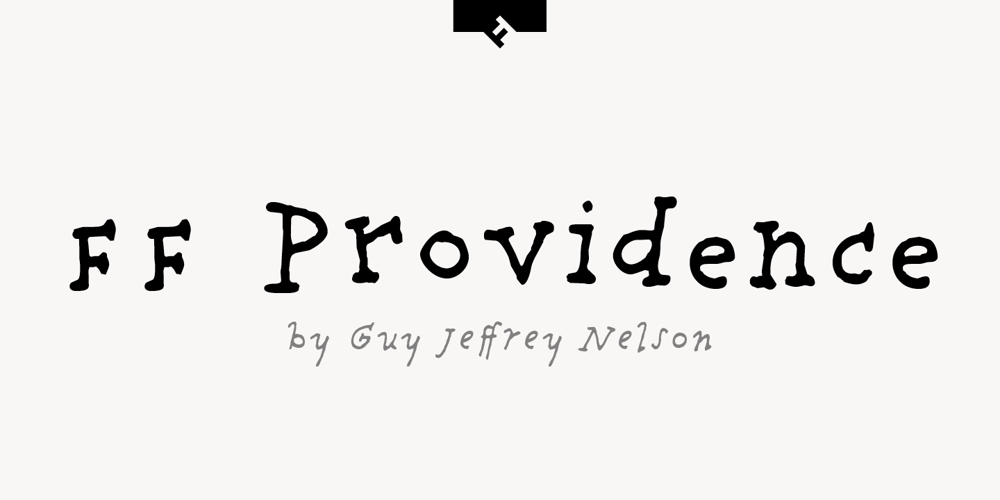
FF Providence Font Family was designed by Guy Jeffrey Nelson, Panos Haratzopoulos and published by FontFont. FF Providence contains 4 styles and family package options. American type designer Guy Jeffrey Nelson created this script FontFont in 1994. The family contains 4 weights: Regular, Italic, Bold, and Bold Italic and is ideally suited for advertising and packaging, festive occasions, poster and billboards as well as web and screen design. FF Providence provides advanced typographical support with features such as ligatures, small capitals, alternate characters, case-sensitive forms, and stylistic alternates. It comes with proportional oldstyle figures. As well as Latin-based languages, the typeface family also supports the Greek writing system. This FontFont is a member of the FF Providence super family, which also includes FF Providence Sans.